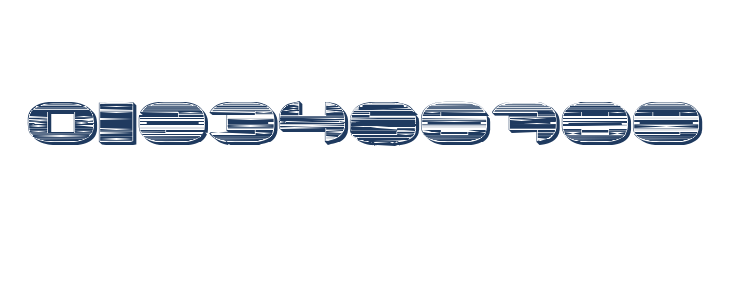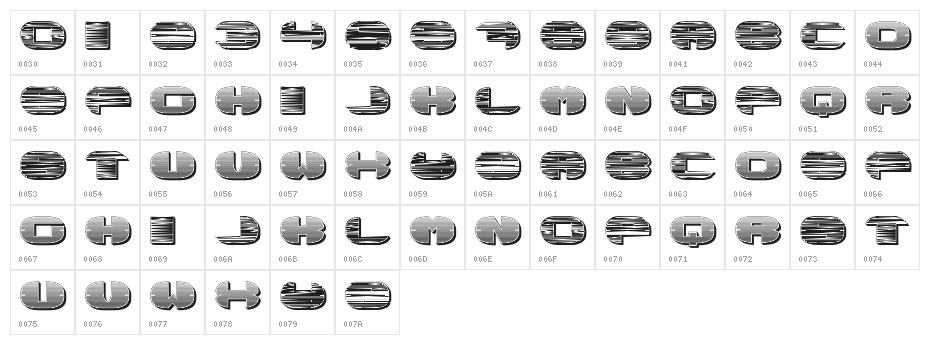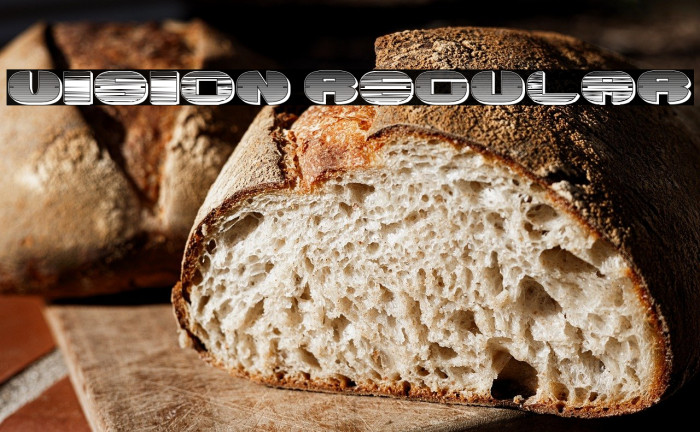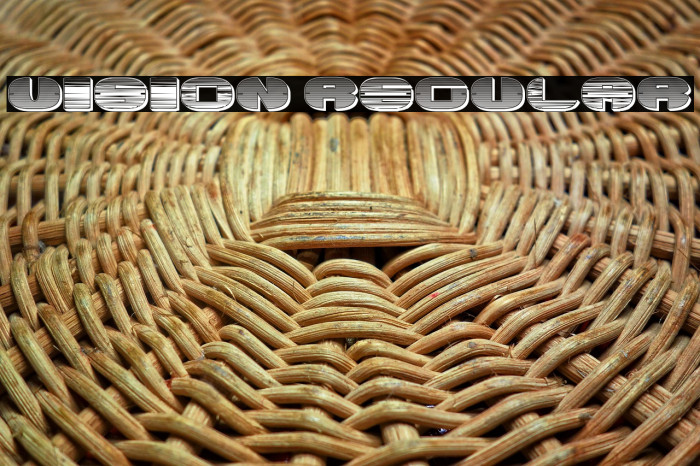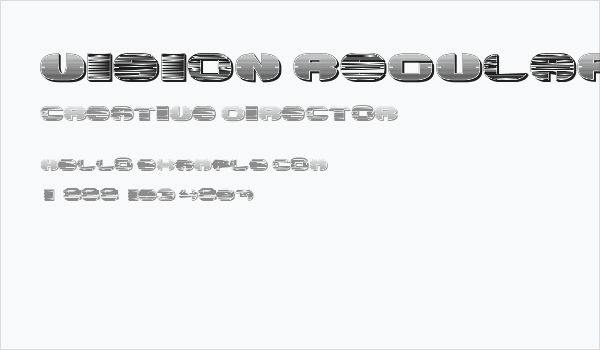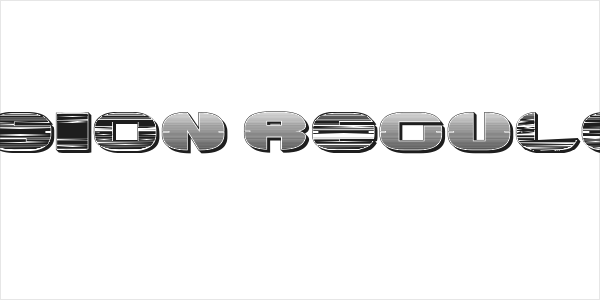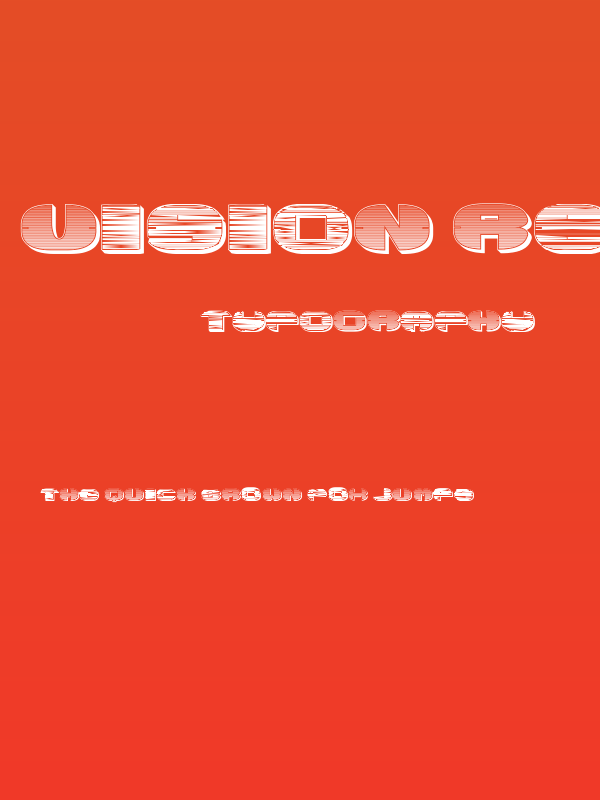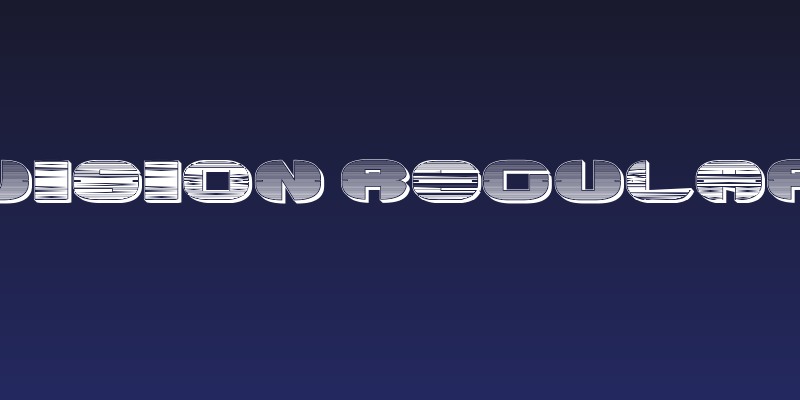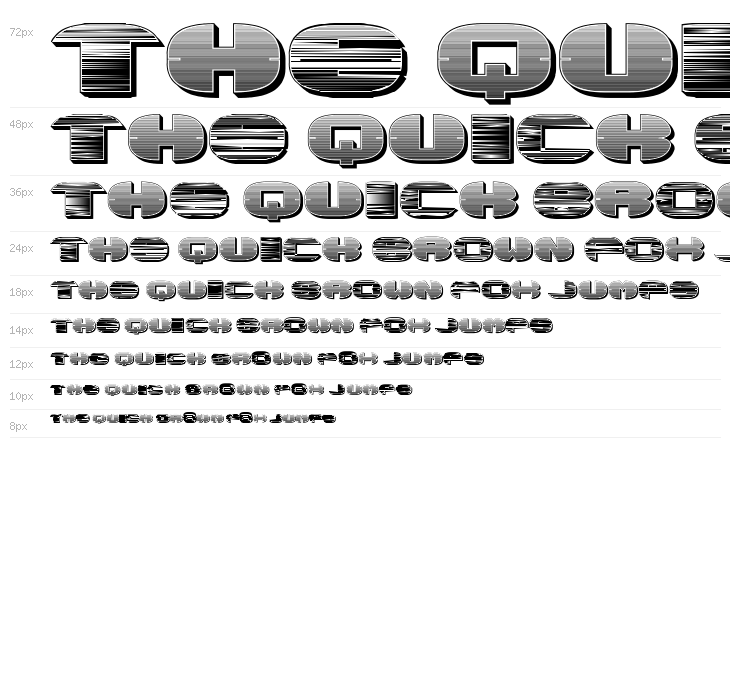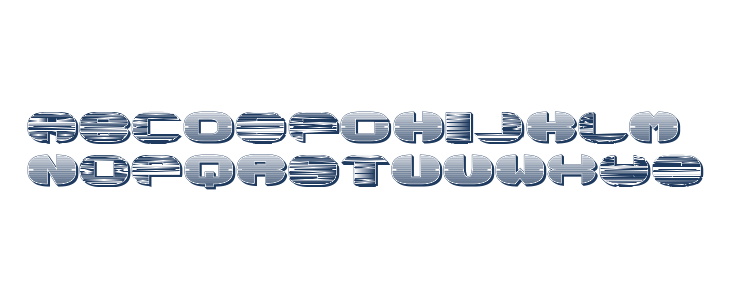
Vision Regular Font
This font features a futuristic and bold design with a unique striped pattern running horizontally across each character. The letters are rounded and have a three-dimensional appearance, giving them a modern and dynamic look. The uppercase and lowercase letters maintain a consistent style, with the stripes adding a sense of movement and depth. The numbers and special characters follow the same design principles, ensuring uniformity across all glyphs. This font's distinct style makes it stand out, ideal for projects that require a strong visual impact.
| Proposed Projects | Ideal for sci-fi themed designs, technology branding, video game titles, and modern advertising. |